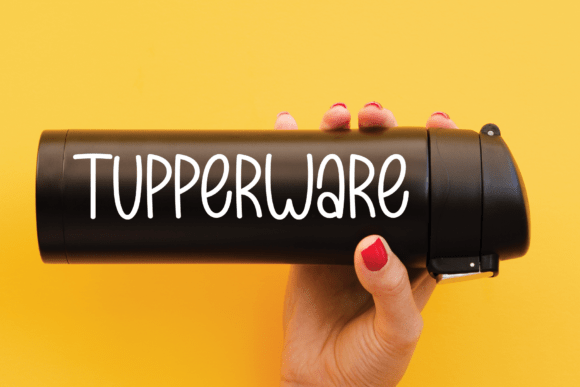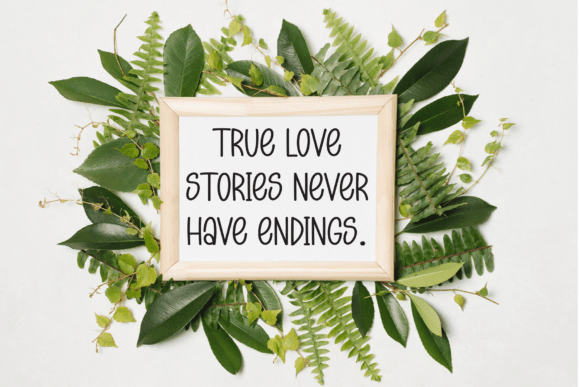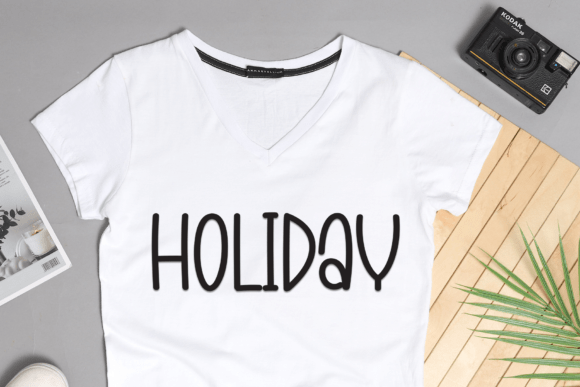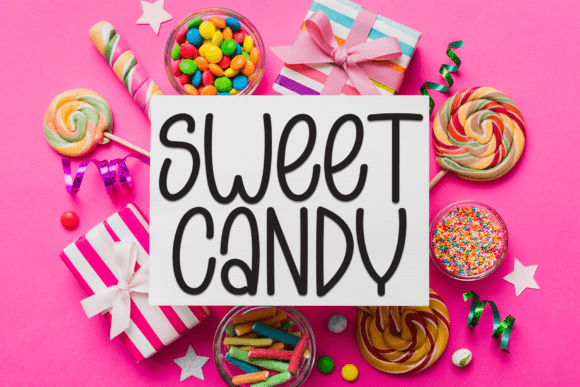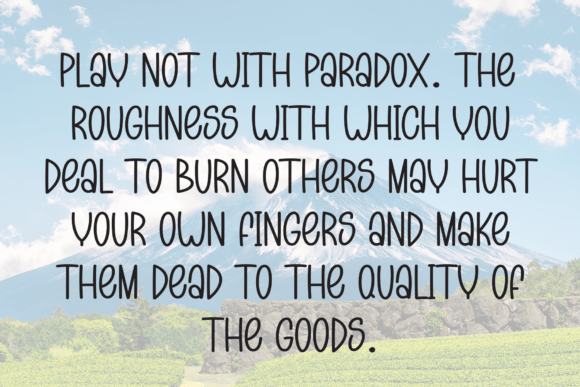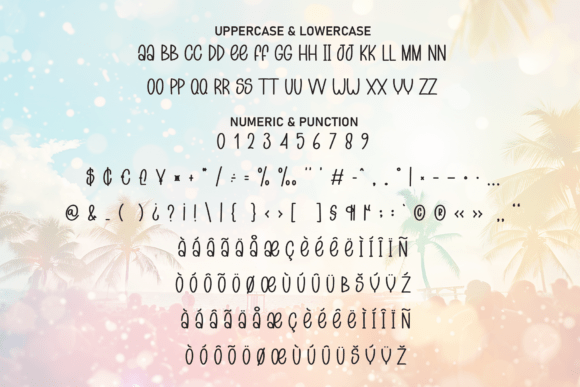
The Perfect Blend of Warmth and Clarity
There’s something magical about a summer morning, when the sun rises over the horizon and the world feels full of endless possibilities. As a designer, I’m sure you’ve experienced that feeling of pure creativity, when everything seems to fall into place and your ideas start flowing. It’s moments like those that make me excited to share with you a font that captures the essence of that feeling – the Bright Summer Font.
Designed to bring warmth and clarity to your projects, Bright Summer Font is a casual and neat display font that’s perfect for branding, headlines, and everyday designs. With its clean structure and approachable style, it’s a valuable addition to any designer’s toolkit, offering readability and charm that makes every message feel genuine and inviting.
Bright Summer Font Key Features
- Font Family: Bright Summer Font is a custom-designed font family.
- Unique Characteristics: The font features a unique, modern design with a mix of rounded and geometric shapes, perfect for creating a playful and friendly atmosphere.
Bright Summer Font Review
At first glance, the Bright Summer Font seems like a vibrant and playful addition to any design project. ✨ Its cheerful, hand-drawn aesthetic makes it perfect for summer-themed campaigns or brands that want to evoke a sense of warmth and happiness. The font’s organic feel and subtle imperfections add to its charm, making it a great choice for creatives who want to inject some personality into their work.
- The font’s playful and energetic vibe makes it perfect for summer-themed projects.
- The organic feel and subtle imperfections add character to the font.
- The font is highly customizable, making it easy to adjust the size and style to fit your design needs.
- The font may be too playful or whimsical for certain design projects, such as corporate or formal branding.
- The font’s organic feel may not be suitable for projects that require a more precise or technical look.
- The font may not be as versatile as some other fonts on the market, making it less suitable for projects with complex typography.
Overall, I think the Bright Summer Font is a fun and creative addition to any design project. While it may not be suitable for every project, it’s perfect for those that require a playful and energetic vibe. With its highly customizable nature and unique aesthetic, it’s a great choice for creatives who want to add some personality to their work. Just be sure to use it wisely, and consider the project’s tone and style before making a final decision.
The Bright Summer Font is perfect for summer-themed projects, such as beach invitations, summer camps, or outdoor events. It’s also great for creating a fun and playful atmosphere in your branding and marketing materials.